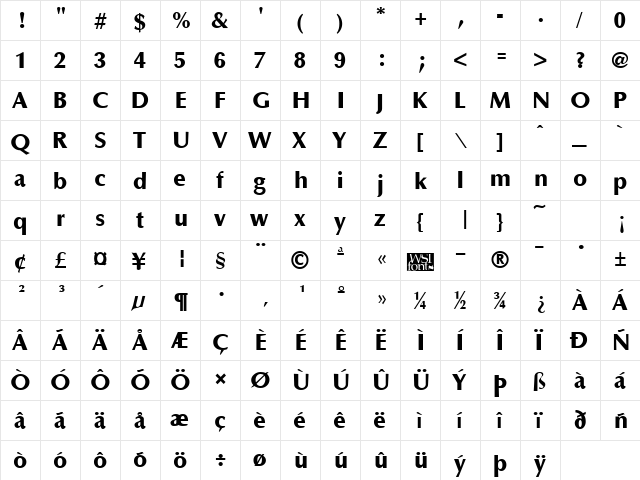
OptaneExtrabold Regular
Design Context for OptaneExtrabold Typeface
OptaneExtrabold is a composed and adaptable typeface that performs quietly and consistently across a wide range of design contexts. Its bold stroke weight gives it real presence on the page.